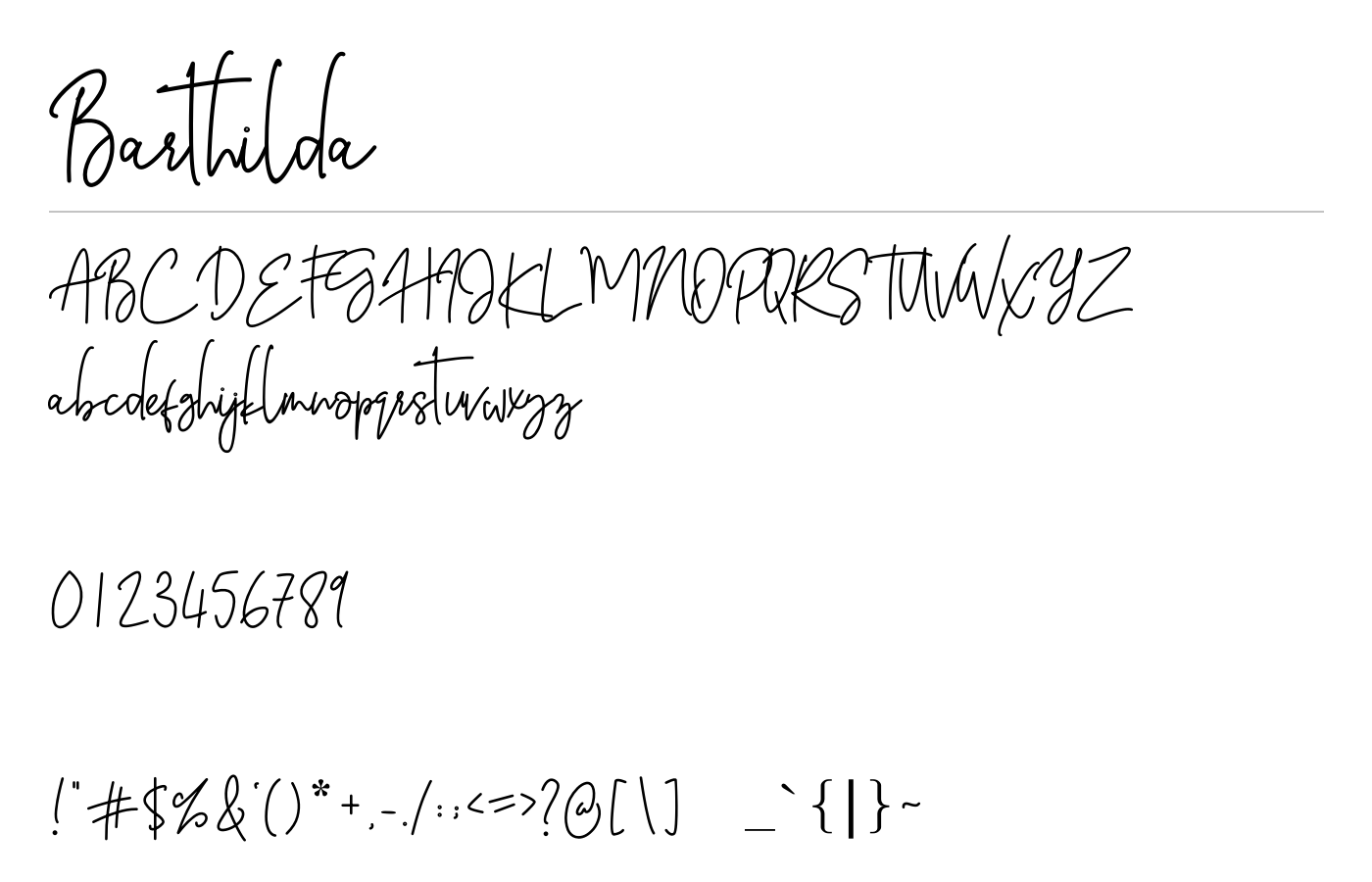
Barthilda is a delicate, handwritten script font with an airy, casual feel. Its slender strokes and tall, slightly irregular letterforms give it a playful yet elegant personality, perfect for creative and informal designs like personal branding, invitations, or stylish social media graphics. This font works best in headlines or short text where its unique charm can truly shine.
Barthilda Font
About Barthilda Font